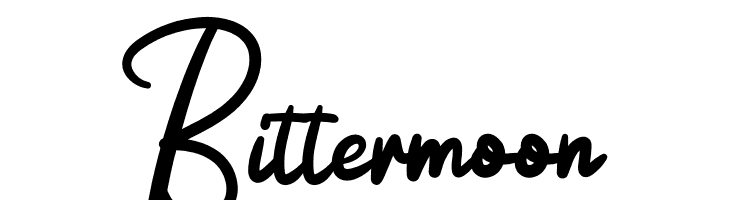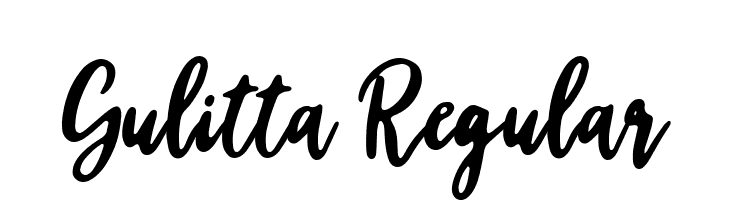
A modern, angular, and geometric font with a dynamic slant.
A bold, italicized font with a futuristic and angular design.
A charming and elegant script font with flowing, cursive letterforms.
A tall, narrow font with a striking, elegant design and consistent stroke width.
A modern, hollow font with outlined letters and a dynamic style.
A playful, handwritten font with flowing, slightly irregular letterforms.
A modern, angular font with sharp geometric lines and a futuristic style.
A pixelated, grid-based font with a digital, LED screen aesthetic.
A flowing, handwritten script font with elegant, connected characters.
A bold, intricate Blackletter-style font with gothic influences.